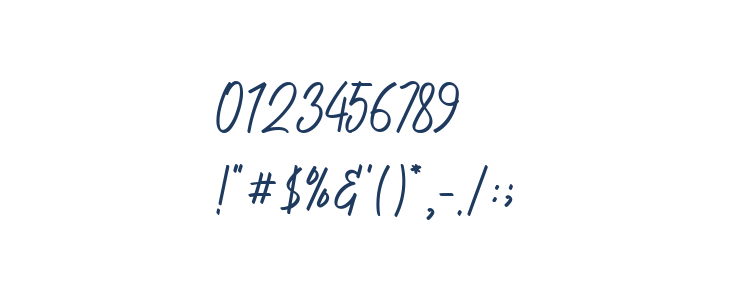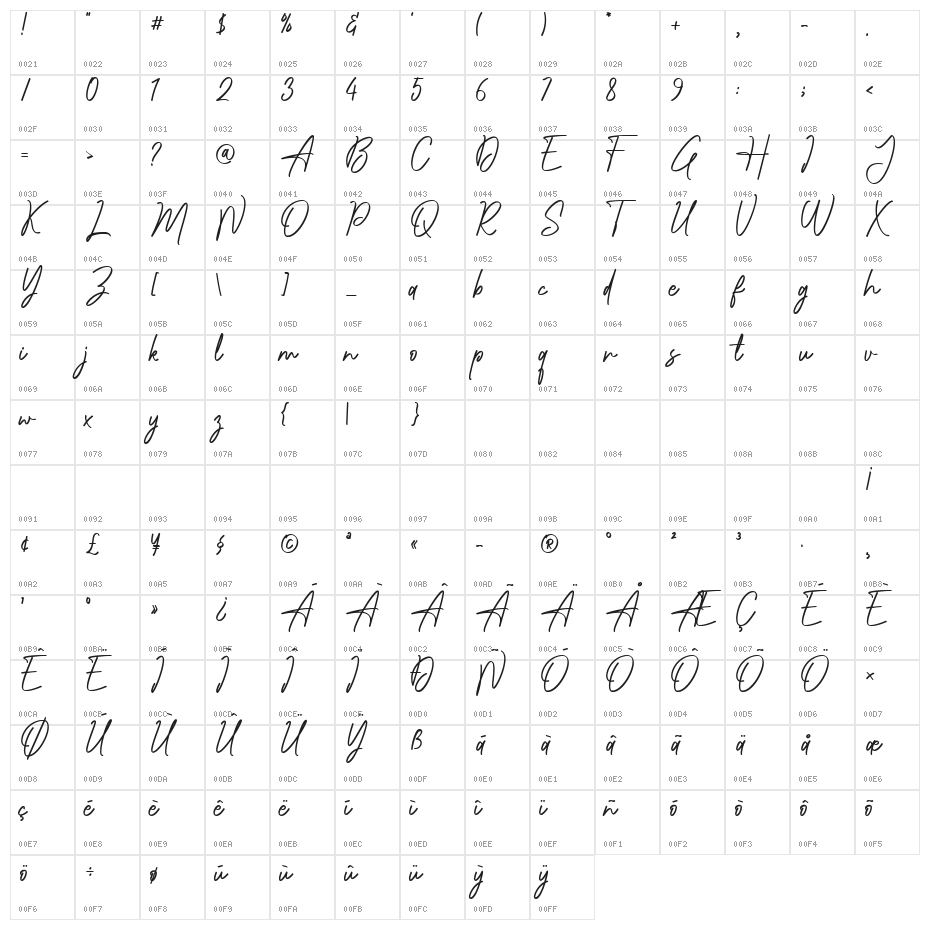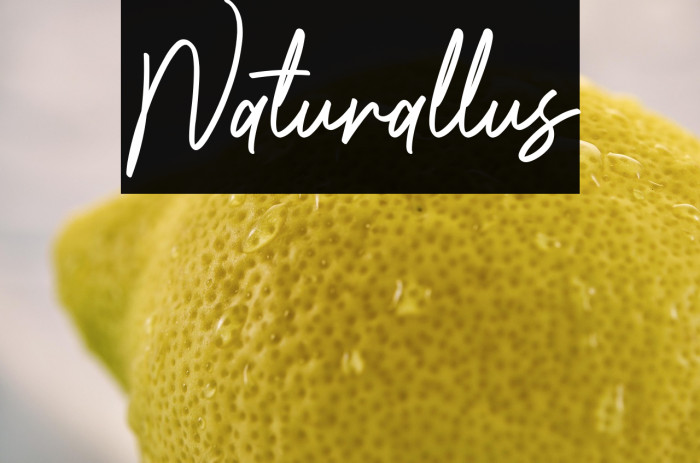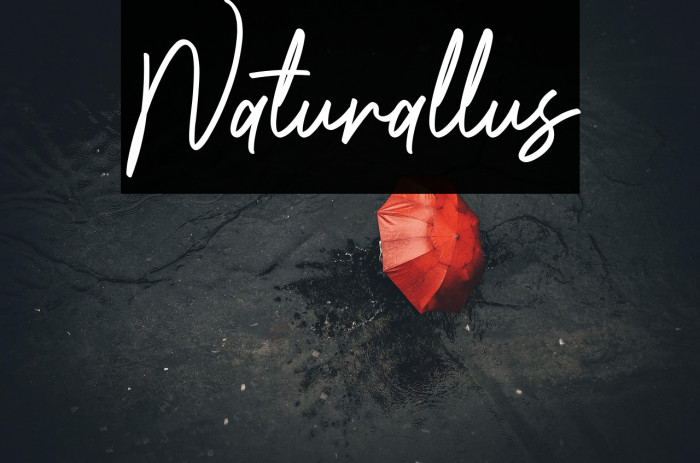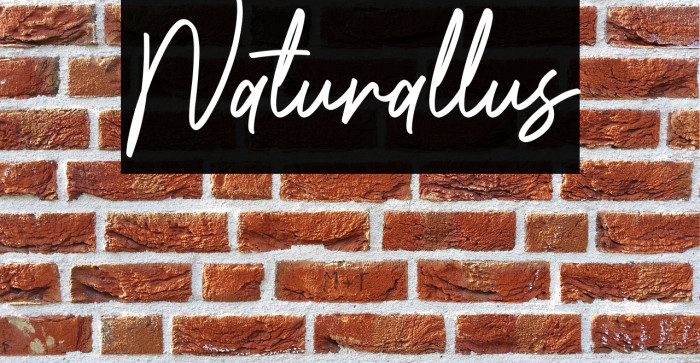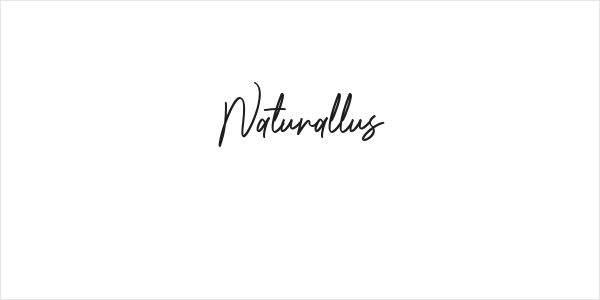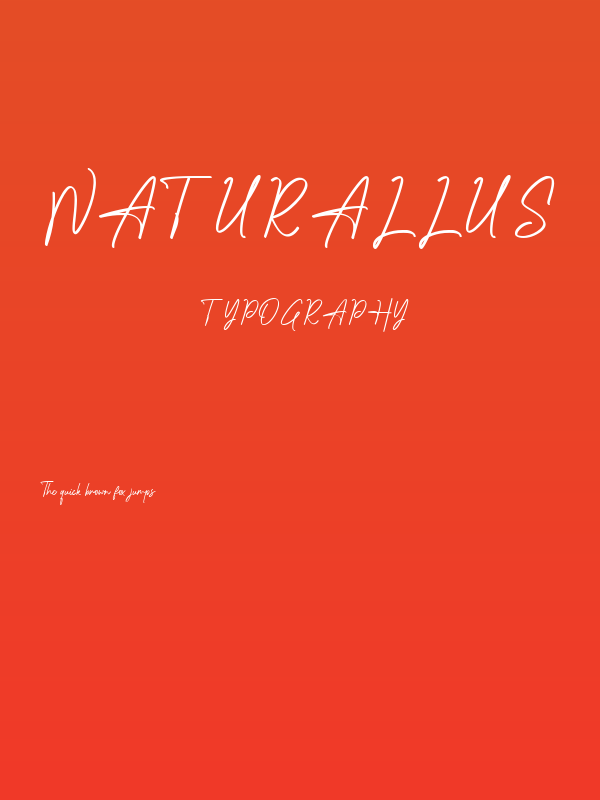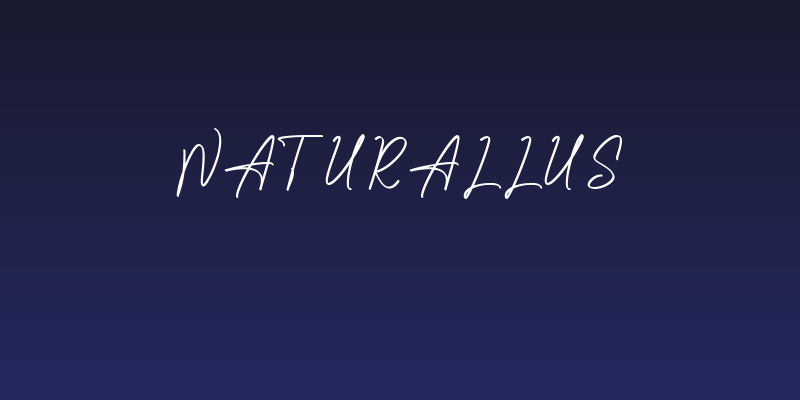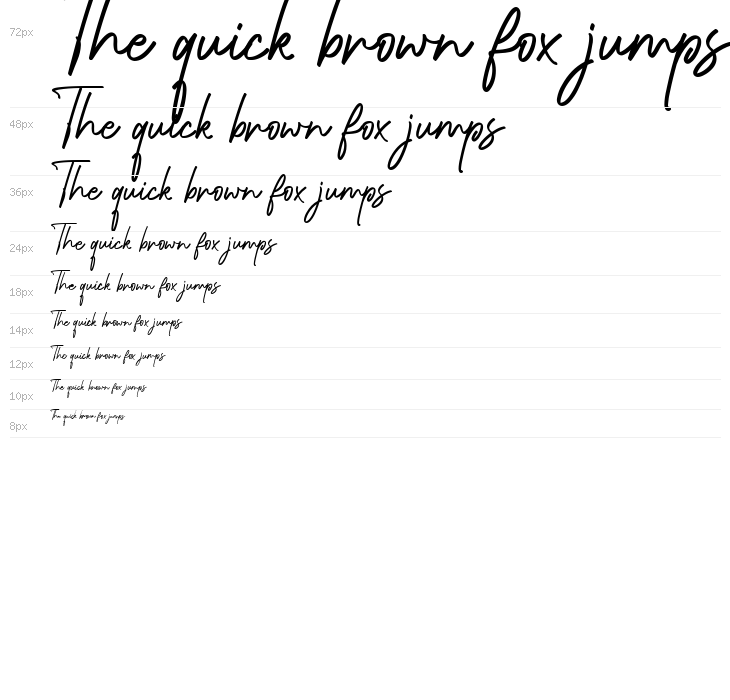
Naturallus Font
Naturallus Description
This font features a lively and flowing handwritten style, characterized by its elegant and cursive letterforms. The uppercase letters are tall and slightly slanted, giving a sense of movement and dynamism. The lowercase letters maintain a consistent flow with smooth curves and loops, enhancing its handwritten appearance. The numerals are clear and legible, complementing the overall style. Special characters are thoughtfully designed to match the cursive aesthetic, making this font versatile for various creative applications. Its natural and organic feel makes it suitable for projects that require a personal touch.